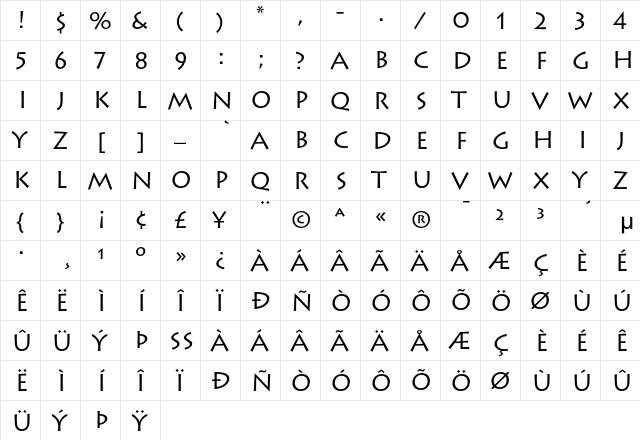
Lithos Regular
Design Context for Lithos Typeface
Lithos is a composed and adaptable typeface that performs quietly and consistently across a wide range of design contexts.
Pro Tip: Pair Lithos with a font of contrasting weight or personality to build a more expressive typographic hierarchy.